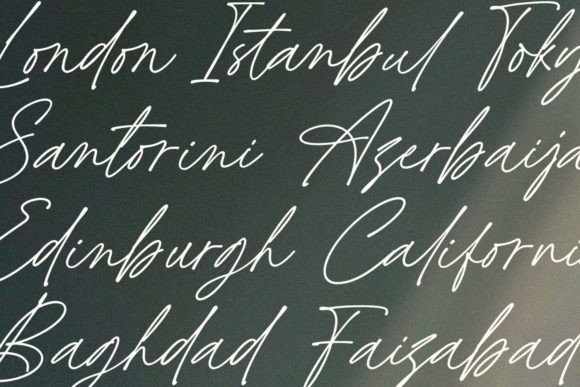
Introducing Angellica Signature Font: Elevate Your Designs with a Touch of Elegance
In the world of typography, a signature font can make all the difference in adding a personal touch to your designs. Whether you’re a graphic designer, a blogger, or a small business owner, having a unique and stylish font can help you stand out from the crowd. That’s why we’re excited to introduce the new Angellica Signature font, a handwritten signature font designed to bring a touch of elegance and sophistication to your designs.
What is Angellica Signature Font?
Angellica Signature is a beautifully crafted handwritten signature font that exudes a sense of chic and modernity. This font is perfect for those who need a clean and elegant handwritten signature for their designs. With its unique ligatures and stylish strokes, Angellica Signature is sure to add a touch of personality to any project.
Key Features of Angellica Signature Font
Beautiful Ligatures
One of the standout features of Angellica Signature is its beautiful ligatures. Ligatures are special characters that combine two or more letters to create a unique and stylish effect. In the case of Angellica Signature, the ligatures are carefully crafted to add a touch of elegance and sophistication to your designs.
Clean and Handwritten Design
Angellica Signature boasts a clean and handwritten design that is both modern and stylish. The font’s strokes are smooth and fluid, giving it a natural and effortless look that is perfect for a wide range of design applications.
Chic and Modern
Angellica Signature is designed to be chic and modern, making it perfect for designers who want to add a touch of sophistication to their work. Whether you’re designing a logo, a website, or a marketing campaign, this font is sure to impress.
Who is Angellica Signature Font for?
Angellica Signature is perfect for a wide range of designers and businesses, including:
- Graphic designers who want to add a personal touch to their designs
- Bloggers who want to create a unique and stylish brand identity
- Small business owners who want to stand out from the competition
- Marketing agencies who want to create eye-catching campaigns
Tips for Using Angellica Signature Font
Here are a few tips for getting the most out of Angellica Signature font:
- Use the font to add a personal touch to your designs
- Experiment with different colors and textures to add depth and interest
- Pair the font with other fonts to create a unique and stylish combination
Benefits of Using Angellica Signature Font
There are many benefits to using Angellica Signature font, including:
Unique and Stylish
Angellica Signature font is a unique and stylish addition to any design. Its elegant strokes and beautiful ligatures make it perfect for adding a touch of sophistication to your work.
Versatile
Angellica Signature font is versatile and can be used in a wide range of design applications, from logos and websites to marketing campaigns and social media graphics.
In conclusion, Angellica Signature font is a beautifully crafted handwritten signature font that is perfect for designers who want to add a touch of elegance and sophistication to their work. With its unique ligatures, clean and handwritten design, and chic and modern style, this font is sure to impress. Whether you’re a graphic designer, a blogger, or a small business owner, Angellica Signature font is a great choice for anyone who wants to stand out from the crowd.